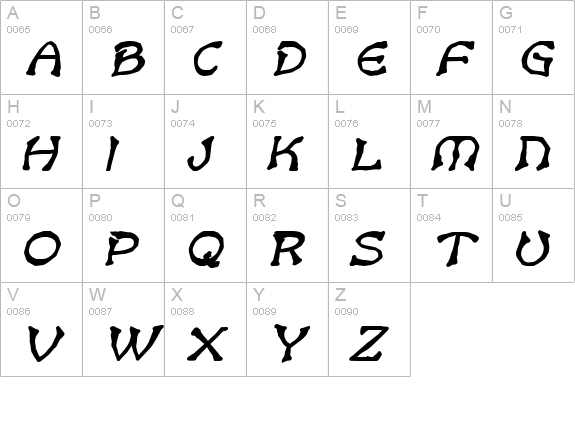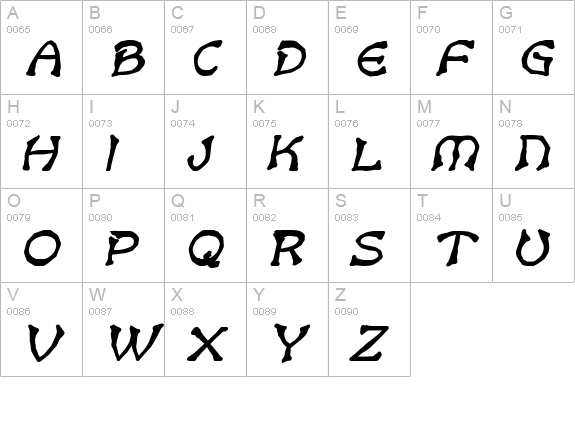
Bart Heavy BoldItalic is a heavy, high-impact variant in the Bart typeface family \xE2\x80\x94 well suited to high-impact headlines, posters, and display advertising.
The Bart Heavy BoldItalic font is a striking and bold typeface that exudes strength and confidence. Its thick, heavy strokes combined with elegant italicized detailing create a sense of power and sophistication. Perfect for making a statement in headlines, titles, or branding materials, this font commands attention and leaves a lasting impression. What makes the Bart Heavy BoldItalic font even more appealing is that it is available for free download at FontsMarket.com. This means you can easily access this impressive typeface and use it in your projects without any cost. Don't miss out on the opportunity to enhance your designs with the bold and impactful Bart Heavy BoldItalic font today!